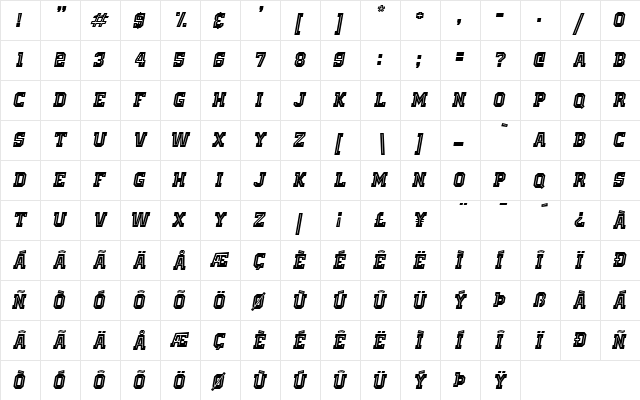
Old School United Inline Alt Italic
| Foundry | Fr餩ric Rich |
| Designer | Fr餩ric Rich |
Design Context for Old School United Typeface
Old School United is built around its visual character rather than neutral utility — its distinctive forms are designed to make an impression at display sizes. The dynamic lean of this cut emphasises speed and emphasis in any layout.
Font Pairing: Pair with a clean neutral sans-serif for body copy to let Old School United's character lead without overwhelming the composition.
Pro Tip: Use Old School United exclusively at display sizes — it was designed to be seen, not read at length. Let a neutral companion handle body copy.